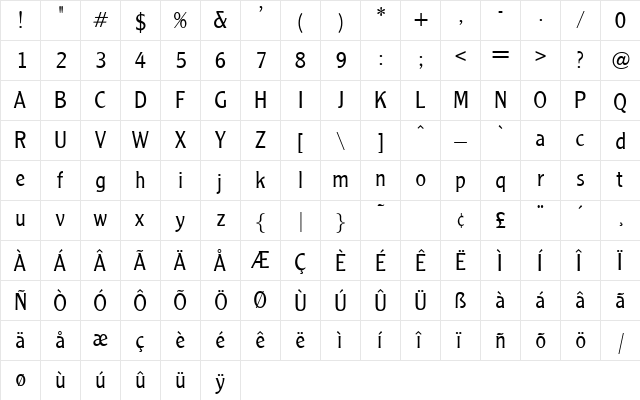
Claritan Regular
Design Context for Claritan Typeface
Claritan offers clean, dependable letterforms without strong stylistic allegiance, making it a practical choice for designers who need flexibility.
Pro Tip: Pair Claritan with a font of contrasting weight or personality to build a more expressive typographic hierarchy.